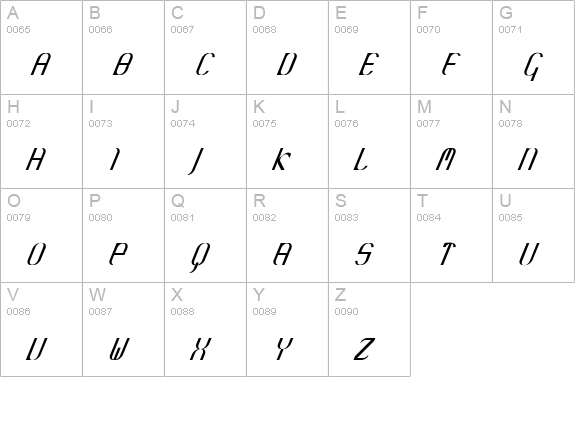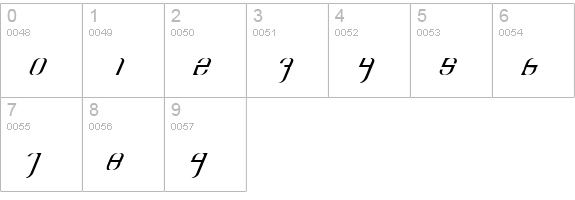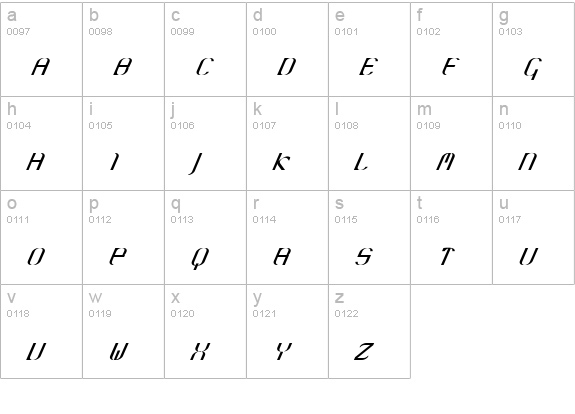
KraneCompressed Font Details
KraneCompressed font is a modern and sleek typeface that embodies a perfect balance between elegance and readability. Its condensed design allows for efficient use of space without compromising on style. The clean lines and sharp edges give KraneCompressed font a contemporary and sophisticated look that is perfect for a wide range of design projects. This versatile font is suitable for various applications, from editorial design to branding and web design. Whether you're creating a sleek corporate identity or designing a minimalist poster, KraneCompressed font will add a touch of sophistication to your project. The best part? KraneCompressed font is available for free download at FontsMarket.com. So go ahead and elevate your designs with this stunning typeface without breaking the bank. Download KraneCompressed font today and bring a touch of modern elegance to your projects.